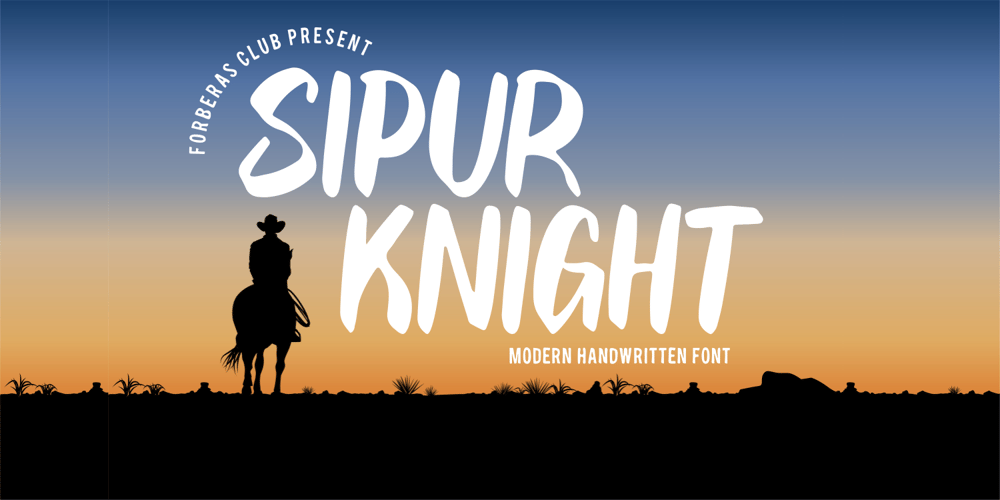
Sipur Knight Font Family was designed by ANGGI HERMAWAN and published by Forberas Club. Sipur Knight contains 1 styles and family package options. Sipur Knight is a fun and whimsical paint brushed display font. This font is perfect for many themed designs.